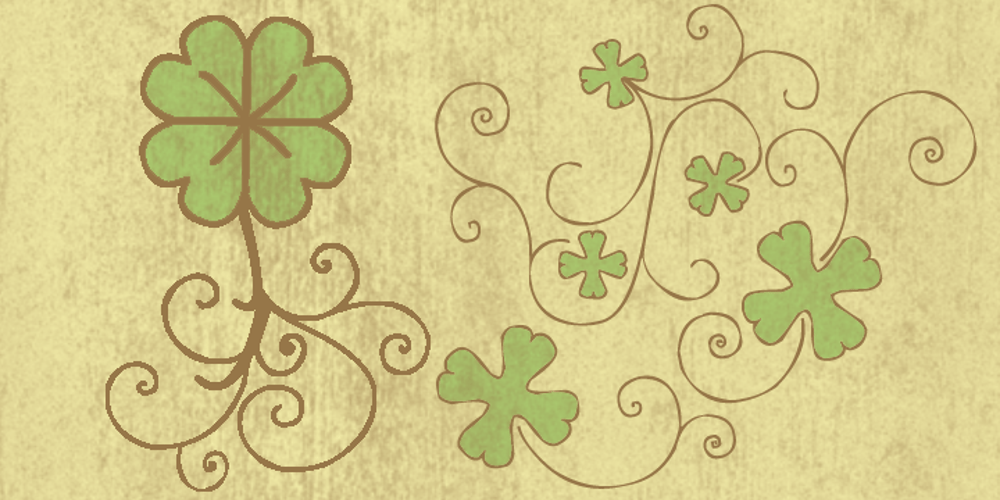
Leprechaun Vomit
Leprechaun Vomit font
Leprechaun Vomit Font Family was designed by published by Bellafonts. Leprechaun Vomit contains 1 styles and family package options. Leprechaun Vomit is just a pretty way of saying Lucky Charms, which I had to use something else besides the name of a cereal anyway. Leprechaun Vomit is a ding bat of luck including images of rainbows, horseshoes, clovers, diamonds, moons, the number 7, japanese “lucky” calligraphy, The Maneki Neko (the Beckoning Cat which is a lucky symbol), and some shooting stars (make a wish). You can use these images to create Irish themed designs like St. Patrick’s Day art, or you can use them for lucky purposes. Bellafonts’ user license allows for commercial use, so you can make products for re-sale, including services offering graphic design. You can choose from a variety of clovers for your own version of a “Kiss me I’m Irish” T-shirt, and you can add some shooting stars and rainbows to make any design for any occasion extra special. If you are a graphic designer with any clients like a ranch, horseback riding schools, and so forth, you may like these lucky horseshoes for your library.